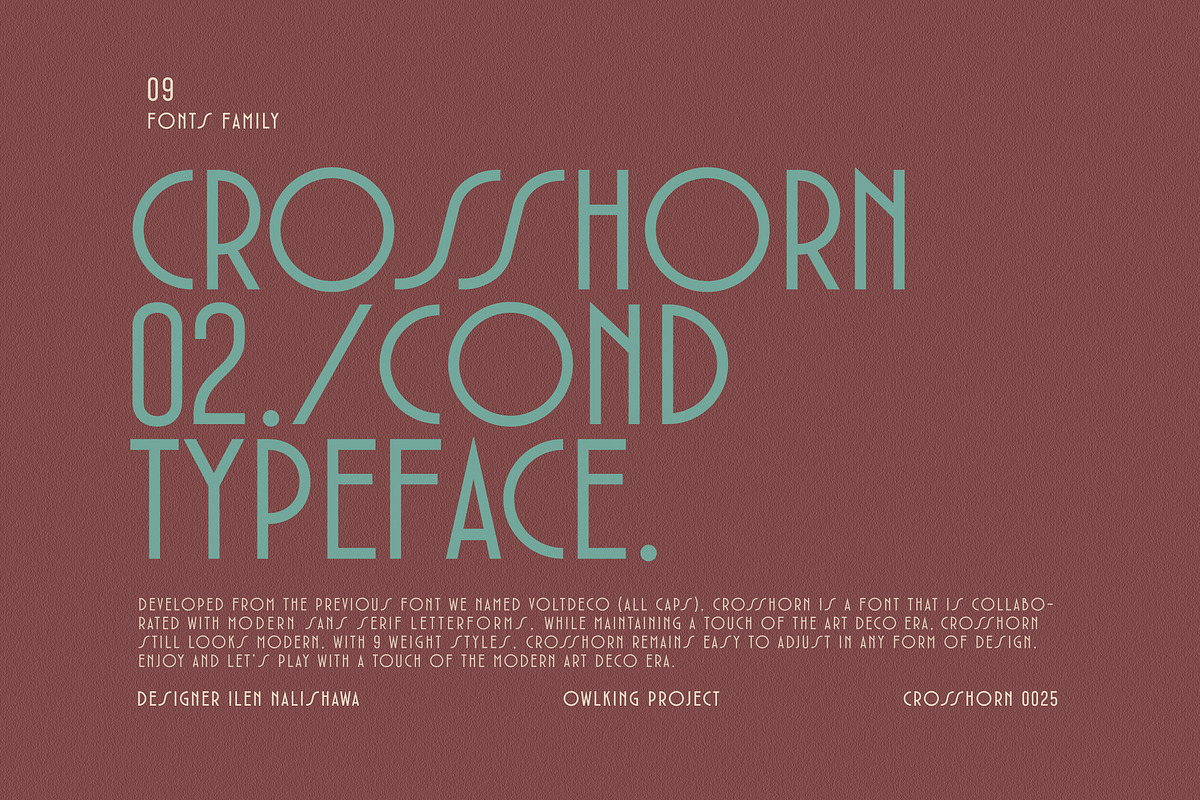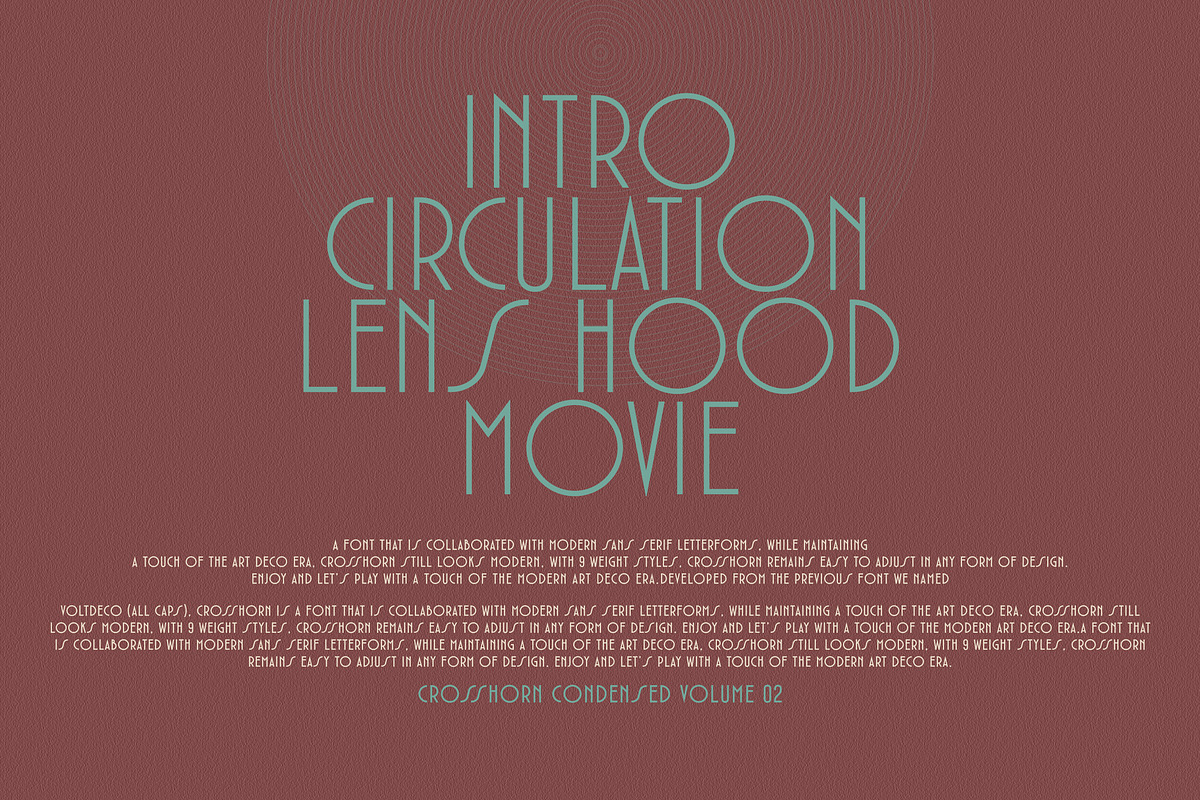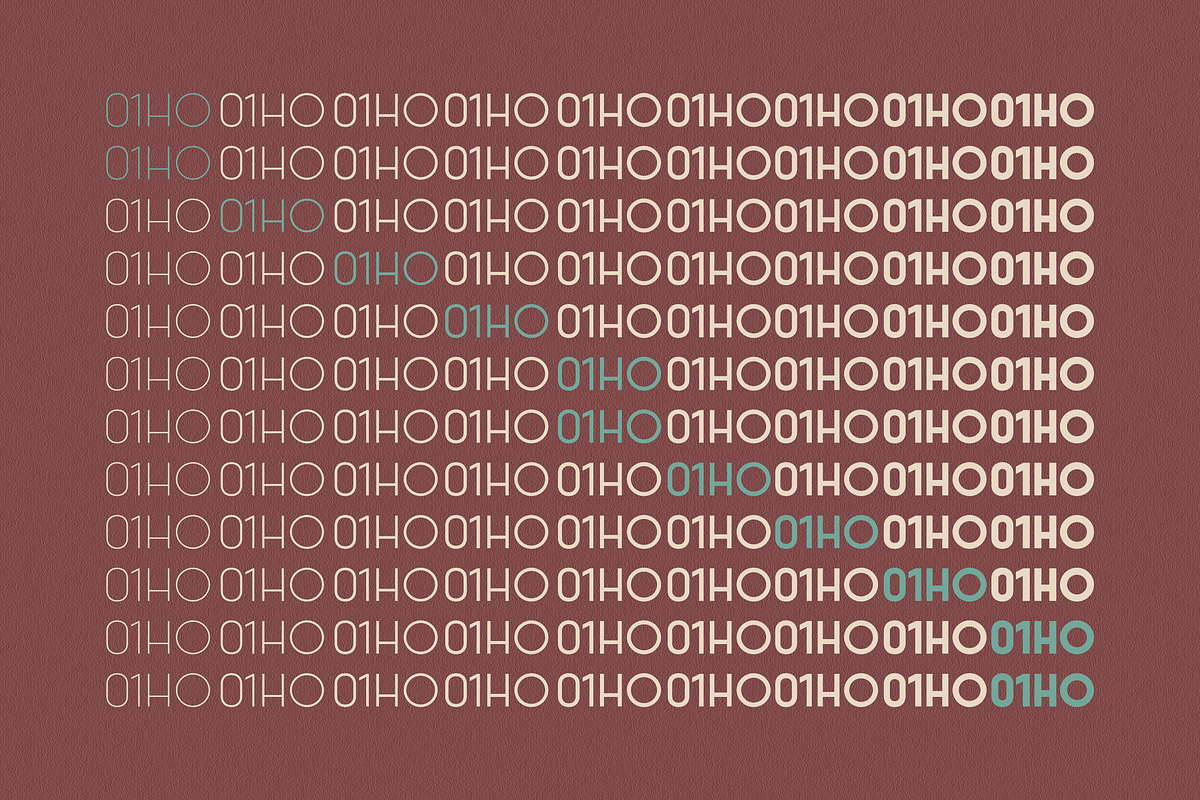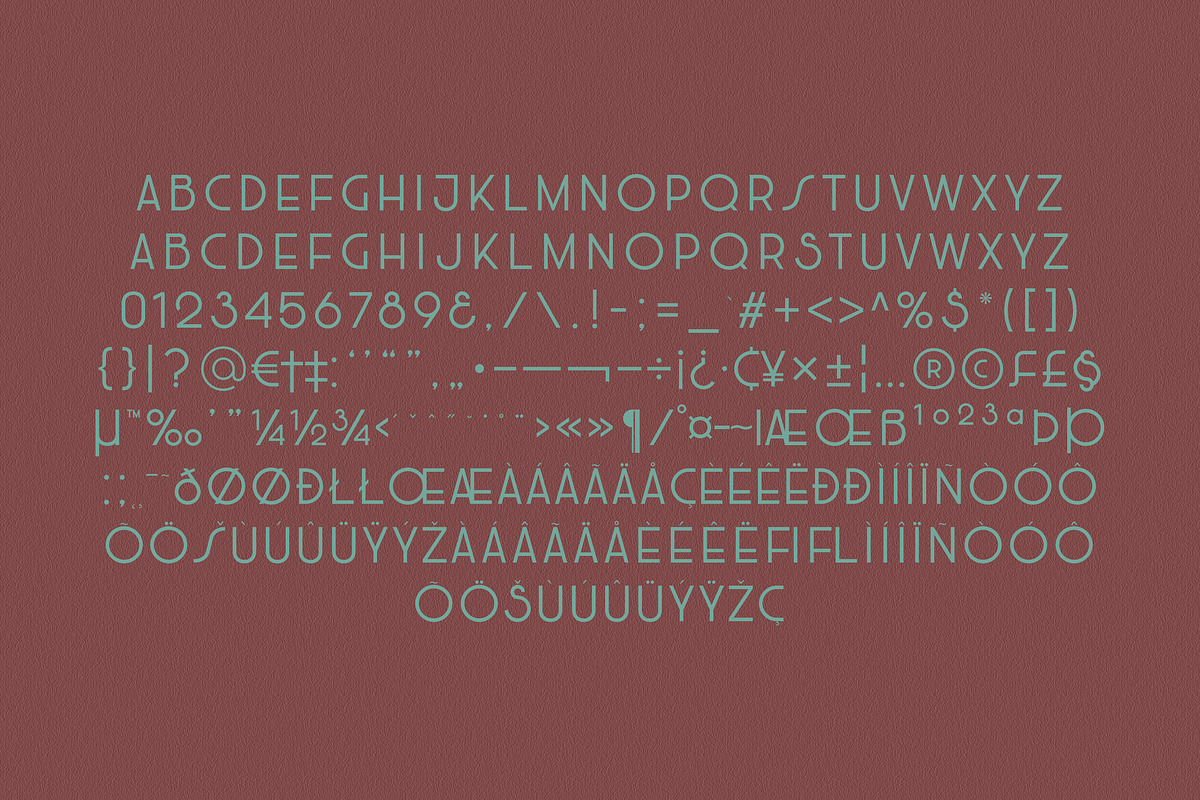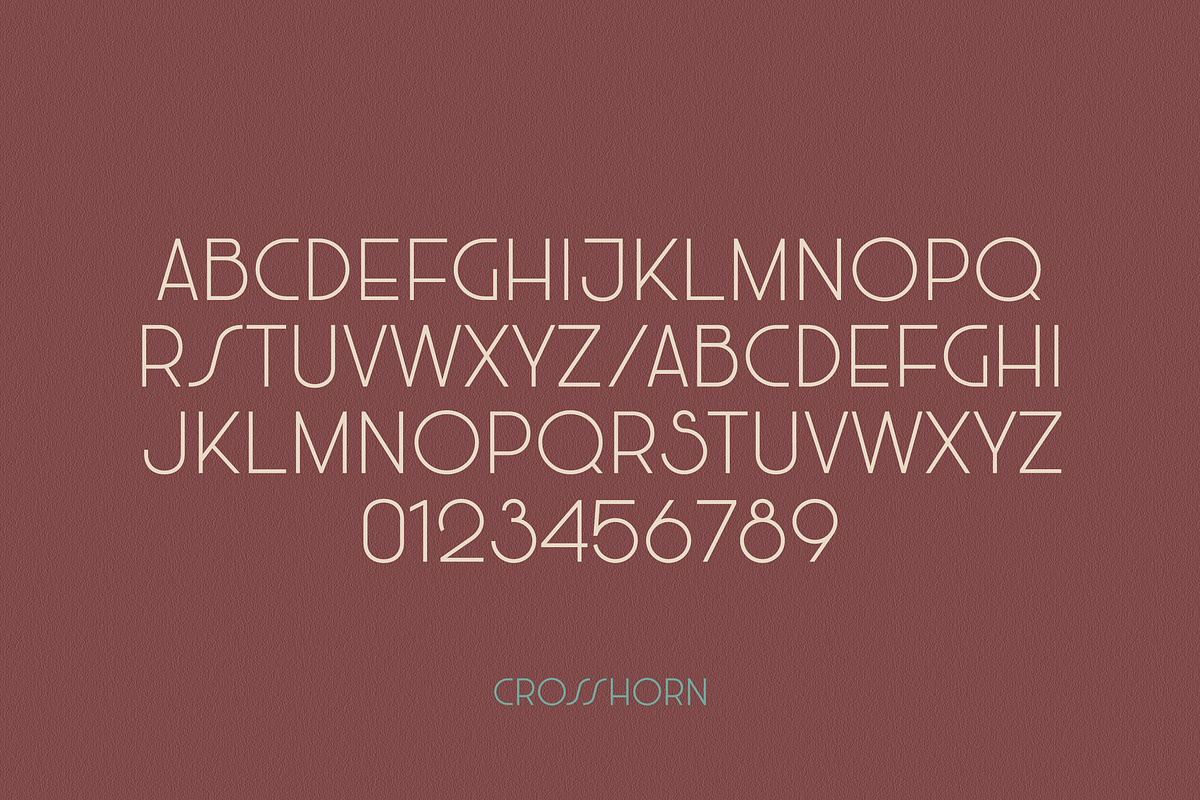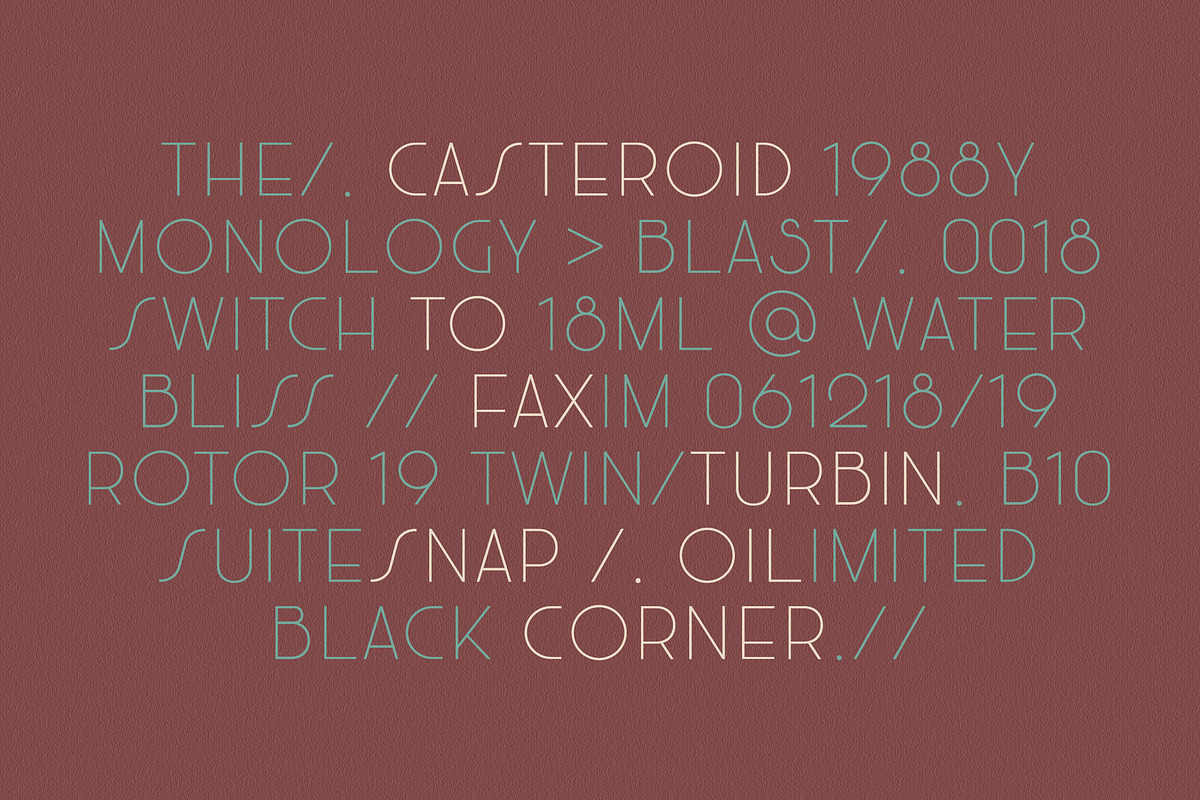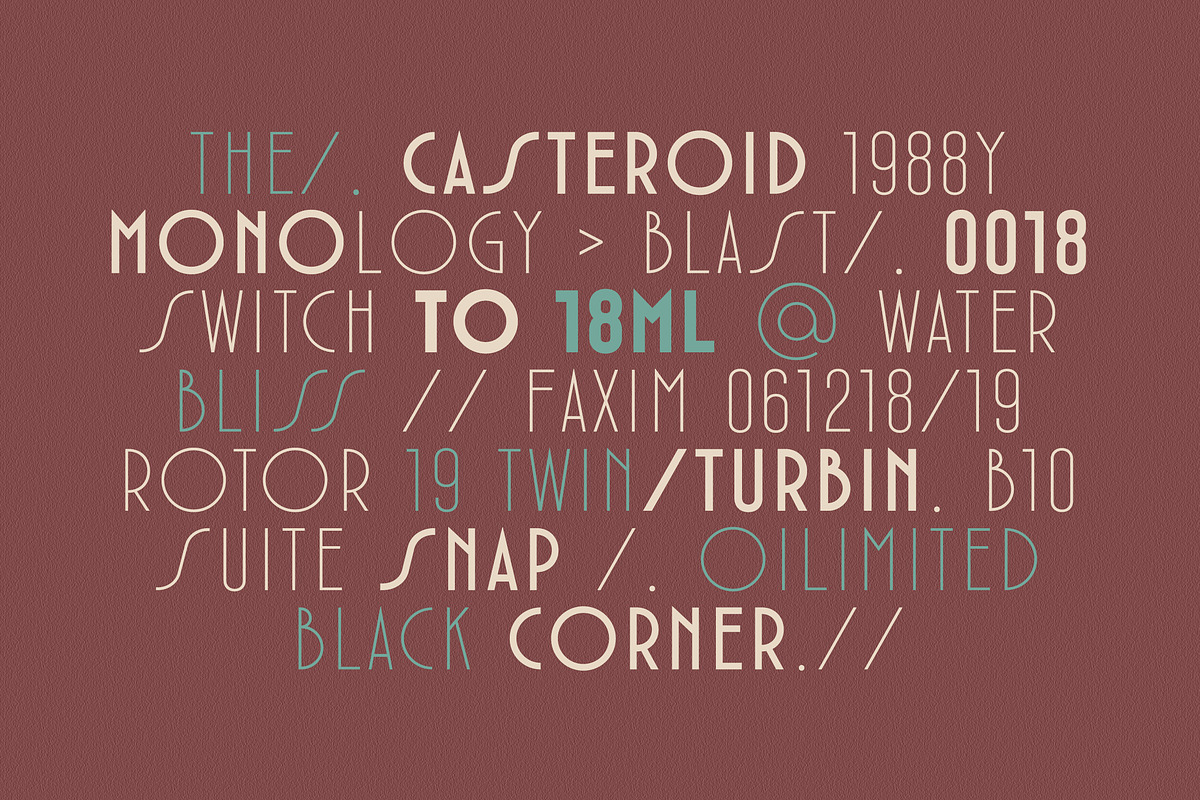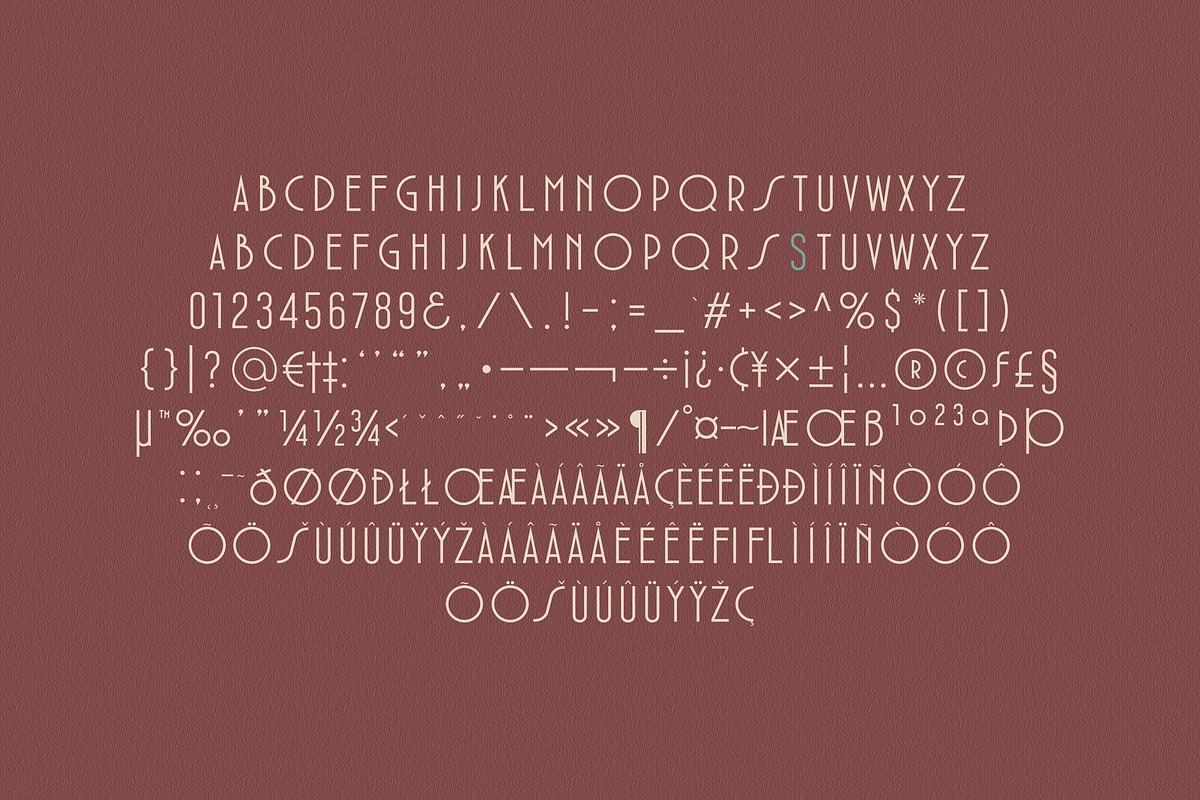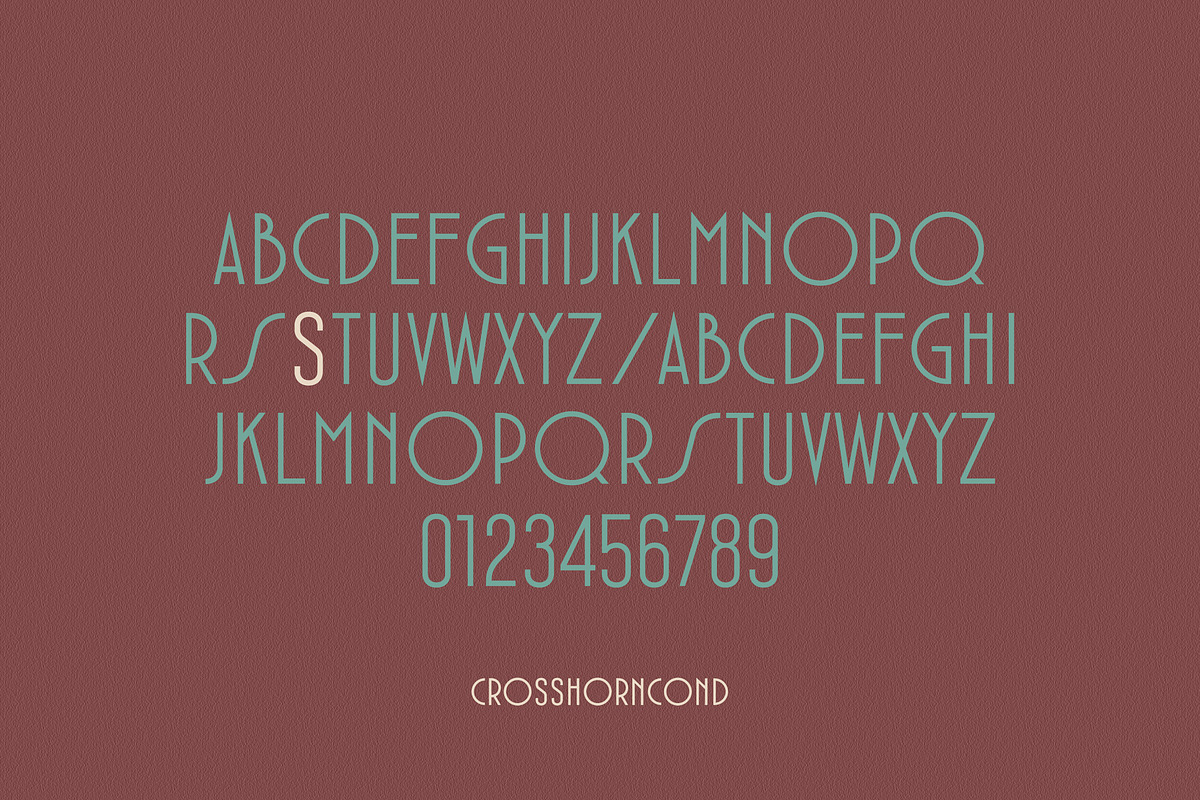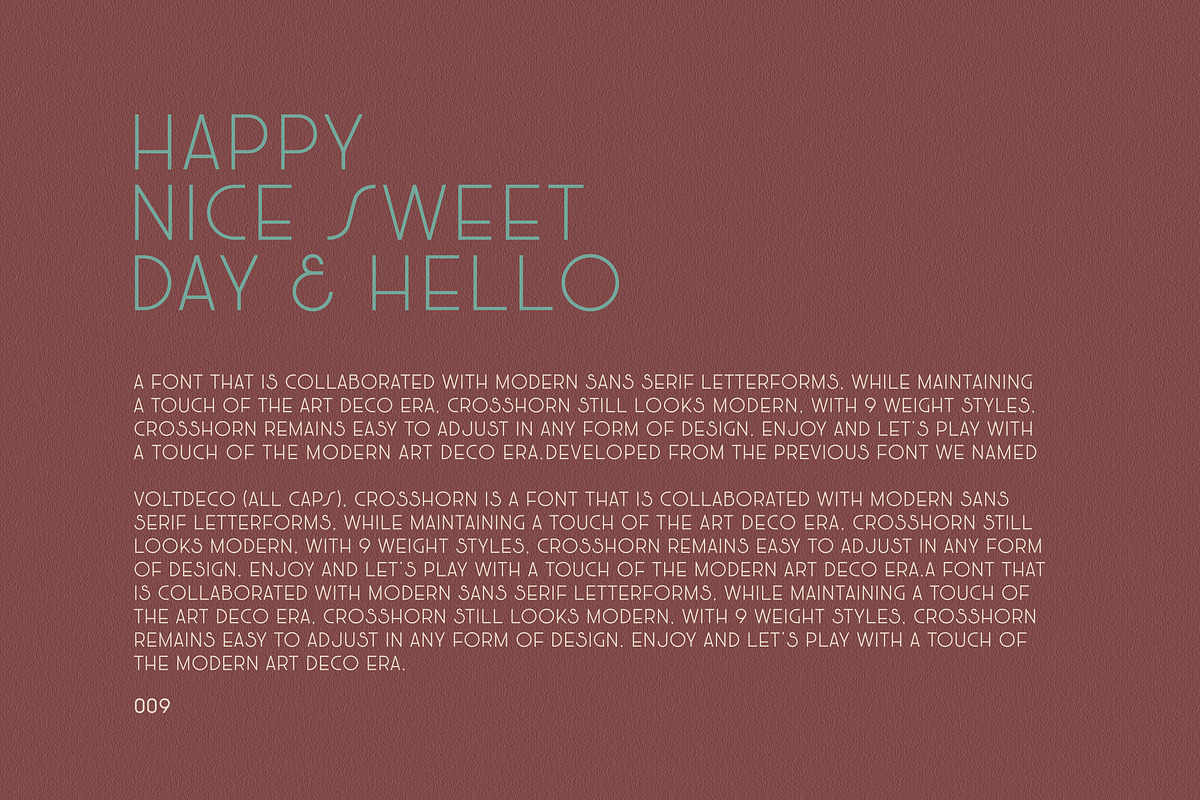
CROSSHORN
Developed from the previous font we named VOLTDECO (ALL CAPS), CROSSHORN is a font collaborated with modern sans serif letterforms, while maintaining a touch of the art deco era, crosshorn still looks modern, with 9 weight normal & 9 weight condensed styles, crosshorn remains easy to adjust in any form of design. Enjoy and let's play with a touch of the modern art deco era.